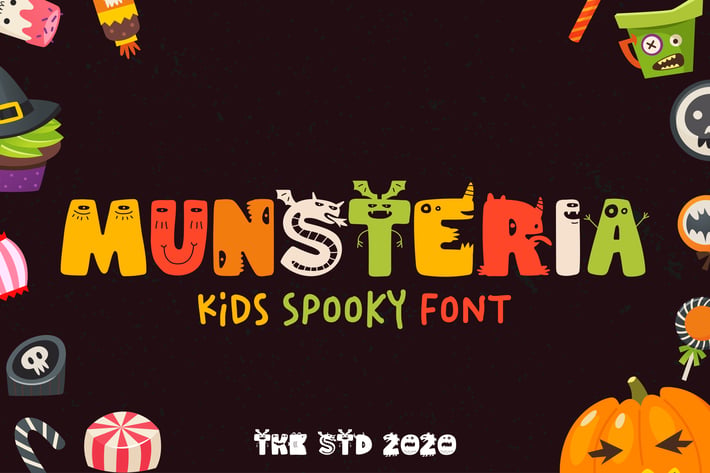
Munsteria - Kids Funny Monster Font
MUNSTERIA - Kids Spooky Font
Munsteria is a spooky yet funny display font with quirky character forms and chunky, uneven outlines—perfect for bringing whimsical monster energy to your Halloween and children’s projects. Designed with bouncy letterforms, soft edges, and playful irregularities, Munsteria balances creepy with cute in a way that’s both charming and readable. Its comic-inspired weight and cheerful color palette make it especially fitting for seasonal campaigns, party invites, and kids content that demands bold storytelling.
The font exudes a fun-loving, goofy personality while still staying on-brand for spooky themes, making it a go-to choice for anything from Halloween party posters to educational games or toy packaging.
Munsteria was built for creators who want to capture attention with a light-hearted twist on horror themes. Its expressive tone and monster-inspired design instantly connect with children, parents, and event-goers looking for Halloween fun without the fright. Whether you’re designing a kids app UI, classroom banner, social media post, or a Halloween sale graphic, Munsteria brings both joy and seasonal relevance with every glyph.
Key Features :
Halloween + Kids Combo
- Balances spooky themes with humor and charm
- Perfect for both fall promotions and all-year kid content
Kid-Safe Playfulness
- Bouncy, exaggerated shapes for maximum friendliness
- Appeals to preschoolers, teachers, and kid-focused designers
* Eye-Catching Monster Feel
- Handcrafted appearance with fun decorative elements
- Optimized for titles, short quotes, and standout graphics